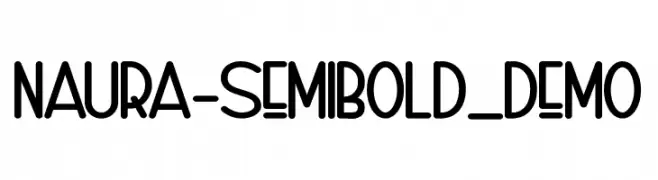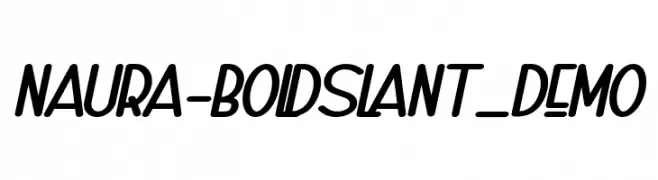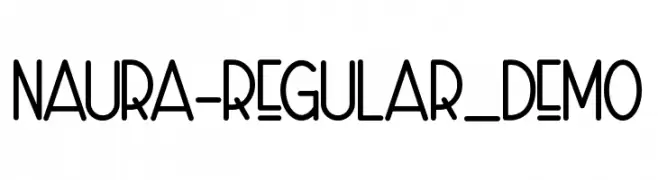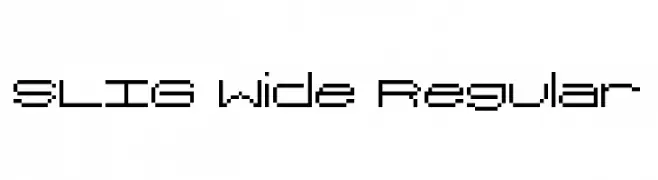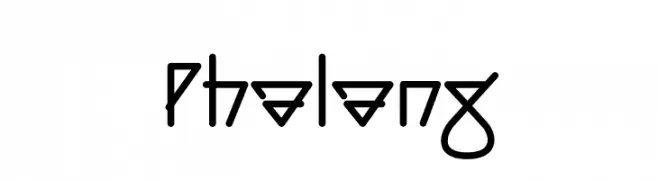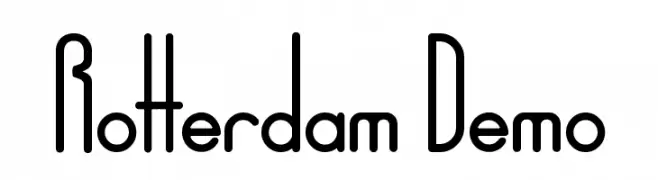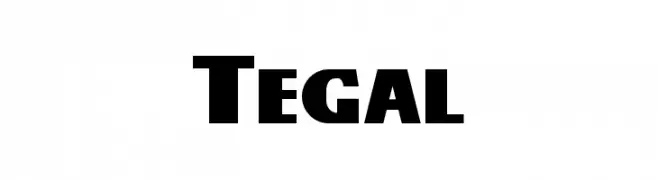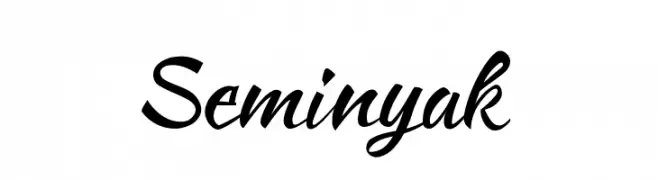
A slanted, semi-bold font with a dynamic and modern style.
A playful, rounded semi-bold font with a modern and friendly appearance.
A bold, slanted font with a dynamic and energetic style.
A modern, rounded font with a sleek and consistent design.
A futuristic, geometric font with interconnected, bold characters.
A pixelated, grid-based font with a modern digital aesthetic.
A geometric, angular font with a futuristic and edgy style.
A modern, geometric font with tall, narrow uppercase letters and balanced lowercase characters.
A bold, modern font with strong, thick strokes and a commanding presence.
A dynamic and elegant script font with fluid, cursive letterforms.